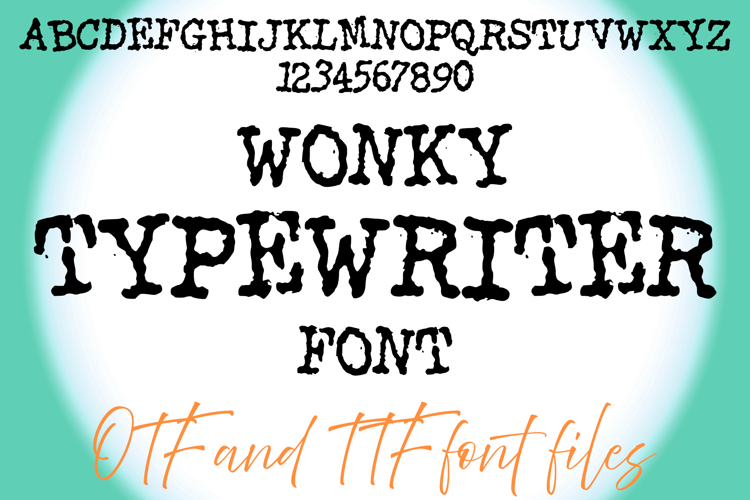
Wonky Typewriter Lettering ABC Text Font Typeface OTF IllustrationÂ
A distressed font where you can create your own words and colour them to your vision!